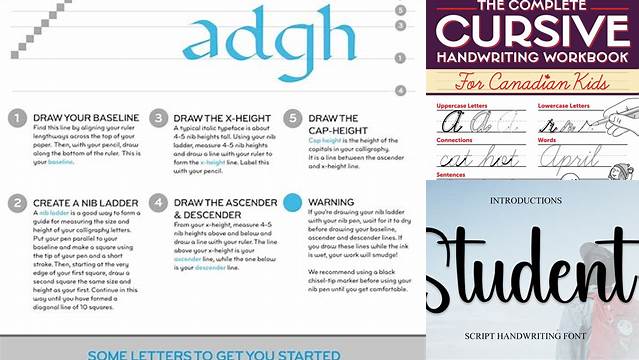
Best Handwriting Fonts For Students: A Comprehensive Guide
Introduction: Why Handwriting Fonts Matter for Students
Hey guys! Let's dive into the world of handwriting fonts and why they're super important for students. In this digital age, it's easy to forget the charm and personal touch of handwritten text. But trust me, handwriting fonts can be a game-changer in education. Think about it – seeing a worksheet or a presentation in a familiar, handwritten style can make the content feel less intimidating and more approachable. Plus, using handwriting fonts can help students connect with the material on a more personal level. It’s like having a conversation with the text! Whether you're a student yourself, a teacher looking for ways to spice up your classroom, or a parent wanting to support your child's learning, understanding the power of handwriting fonts is key. So, let's explore how these fonts can make learning more engaging, improve reading comprehension, and even spark creativity. We’ll also look at some fantastic options out there and how to use them effectively. Get ready to add a personal touch to your study materials!
The Benefits of Using Handwriting Fonts in Education
One of the primary benefits of using handwriting fonts in education is their ability to enhance engagement and readability. Let’s face it, staring at blocky, digital text all day can be a real drag. Handwriting fonts, on the other hand, bring a sense of warmth and authenticity to the learning experience. Imagine reading a history lesson written in a font that mimics cursive – it instantly feels more personal and less like a robotic recitation of facts. This personal connection can make students more likely to pay attention and absorb the information. Moreover, handwriting fonts can be particularly helpful for students who struggle with reading. The varied and less uniform appearance of these fonts can make text easier to process for some learners, especially those with dyslexia or other reading challenges. By presenting information in a style that’s closer to actual handwriting, we’re essentially bridging the gap between digital text and the familiar handwriting they see every day. This can reduce cognitive load and make the learning process smoother and more enjoyable. And let's not forget the creative aspect! Using handwriting fonts can inspire students to think differently about the content they're learning. It adds a touch of artistry to the educational experience, encouraging them to engage with the material in a more imaginative way.
Understanding Different Styles of Handwriting Fonts
Okay, let’s talk about the different styles of handwriting fonts out there. There's a whole spectrum to explore, from casual and playful to elegant and formal. Knowing the different styles can help you choose the best font for your specific needs. First up, we have the casual fonts. These are your go-to choices for a relaxed, friendly vibe. Think about fonts that mimic everyday handwriting – slightly uneven, with a natural flow. These are great for making materials feel approachable and less intimidating. Then there are the script fonts, which resemble cursive handwriting. Script fonts can add a touch of elegance and sophistication, making them ideal for projects where you want to convey a sense of style or formality. However, it’s essential to use them sparingly, as overly ornate script fonts can sometimes be hard to read. Next, we have the print handwriting fonts, which mimic the neat, block-letter style often taught in elementary schools. These are fantastic for younger students or for materials where clarity is paramount. They’re easy to read and can help reinforce handwriting skills. Finally, there are the unique and artistic handwriting fonts. These are the wild cards – fonts that incorporate quirky design elements or have a distinct personality. They’re perfect for adding a creative flair to projects, but again, readability should always be a top consideration. Understanding these different styles empowers you to select the font that best suits your message and audience, ensuring your materials are both effective and visually appealing.
Top Handwriting Fonts for Students: Our Recommendations
Alright, let's get to the fun part – recommending some top-notch handwriting fonts that are perfect for students. We've scoured the font universe to bring you a curated list that balances readability, style, and overall effectiveness in an educational setting. First on our list is “School Script Dashed,” a fantastic choice for early learners. This font mimics the dotted lines often used in handwriting practice, making it an excellent tool for teaching letter formation. It’s clear, simple, and incredibly helpful for reinforcing basic handwriting skills. Next up, we have “KG Primary Pen,” a super popular option among teachers. It’s clean, legible, and has a friendly vibe that makes it perfect for worksheets, presentations, and classroom decor. Plus, it comes in both regular and lined versions, offering even more flexibility. For a more casual and approachable feel, check out “Journaling Pen.” This font looks like actual handwriting, with a slightly messy charm that makes it feel authentic and personal. It’s great for adding a touch of personality to your materials without sacrificing readability. If you’re looking for a script font that’s both elegant and easy to read, “CAC Shasted” is a winner. It has a lovely cursive style that’s perfect for headings, titles, or special notes. Just remember to use it sparingly to ensure optimal readability. Last but not least, we have “OpenDyslexic, ” While not strictly a handwriting font, it’s designed to be incredibly readable for students with dyslexia. It’s a sans-serif font with uniquely shaped letters that help prevent confusion, making it an invaluable tool for inclusive classrooms. These are just a few of the many great handwriting fonts out there, but they’re a fantastic starting point for enhancing your educational materials.
Reviewing Popular Choices: KG Primary Pen, School Script Dashed, and More
Let's dig a little deeper into some of the popular handwriting fonts we mentioned, starting with KG Primary Pen. This font is a real workhorse in the education world, and for good reason. It's designed by Kimberly Geswein, a former teacher, so it's created with the needs of students and educators in mind. KG Primary Pen stands out for its clarity and simplicity. The letters are well-formed and easy to distinguish, making it an excellent choice for young learners who are just starting to read and write. The font also has a friendly, approachable feel, which can make learning materials less intimidating. One of the great things about KG Primary Pen is that it comes in multiple versions, including lined options. These lined versions are fantastic for handwriting practice, as they provide a visual guide for letter placement and size. This makes it easier for students to develop neat and consistent handwriting skills. Now, let’s talk about School Script Dashed. This font is specifically designed to mimic the dotted lines used in handwriting workbooks, making it an invaluable tool for teaching letter formation. The dotted lines help students trace the letters correctly, reinforcing the muscle memory needed for fluent handwriting. School Script Dashed is also incredibly clear and easy to read, which is essential for early learners. Its simplicity ensures that students can focus on the shape of the letters without being distracted by unnecessary flourishes or embellishments. Beyond these two, there are other noteworthy options like Journaling Pen, which offers a more casual, handwritten feel, and CAC Shasted, a lovely script font that adds a touch of elegance. Each of these fonts brings something unique to the table, so it’s worth experimenting to find the ones that work best for your specific needs. Remember, the goal is to choose fonts that enhance readability and engagement, making the learning experience as positive and effective as possible.
How to Use Handwriting Fonts Effectively in Your Teaching Materials
So, you've got some awesome handwriting fonts in your toolkit – great! But how do you actually use them effectively in your teaching materials? It's not just about slapping a handwritten-style font on everything and calling it a day. There's a bit of finesse involved in making sure these fonts enhance, rather than hinder, the learning process. First and foremost, think about readability. While handwriting fonts can add a personal touch, they shouldn't come at the expense of clarity. Avoid using overly ornate or stylized fonts for large blocks of text. Save those for headings, titles, or short phrases where a bit of flair can make an impact without sacrificing legibility. For body text, stick to cleaner, simpler handwriting fonts that mimic everyday penmanship. Another key tip is to consider your audience. What works for a high school student might not work for a kindergartner. Younger students benefit from fonts that closely resemble the print handwriting they're learning in class, while older students might appreciate more sophisticated styles. Think about the context too. A worksheet might call for a different font than a presentation slide. Worksheets often benefit from clear, simple fonts that are easy to write on, while presentations can handle a bit more visual pizzazz. Don't be afraid to mix and match fonts, but do it strategically. Pairing a handwriting font with a clean, sans-serif font can create a visually appealing contrast while maintaining readability. Use the handwriting font for headings or emphasis and the sans-serif font for the main text. Finally, always test your materials. Print out a sample page or view your presentation on a screen to see how the fonts look in different formats. This can help you catch any readability issues before you distribute your materials to students. Using handwriting fonts effectively is about finding the right balance between style and substance, ensuring that your materials are both engaging and easy to understand.
Tips for Choosing the Right Font for Different Age Groups and Subjects
Choosing the right handwriting font for different age groups and subjects is crucial for creating effective learning materials. What works wonders for a group of kindergartners might be a complete miss for high school students, and vice versa. So, let’s break down some tips to help you make the best choices. For early elementary students (think kindergarten through second grade), clarity and simplicity are key. You'll want fonts that closely mimic the basic print handwriting they're learning in class. Fonts like School Script Dashed or a clean, straightforward print handwriting font are excellent choices. Avoid overly stylized or cursive fonts at this stage, as they can be difficult for young learners to decode. For upper elementary and middle school students (grades 3-8), you have a bit more flexibility. You can start incorporating fonts that have a bit more personality while still maintaining readability. A casual handwriting font that resembles everyday penmanship can work well for subjects like language arts or social studies. If you're teaching handwriting itself, a font that demonstrates proper letter formation and spacing is ideal. When it comes to high school students, you can explore a wider range of styles. Script fonts or more artistic handwriting fonts can be used sparingly for headings or titles to add visual interest. However, always ensure that the main body text is highly readable. Consider the subject matter as well. A more formal script font might be appropriate for a literature class, while a casual font might be better suited for a creative writing assignment. Beyond age and subject, think about the specific learning needs of your students. If you have students with dyslexia or visual impairments, opt for fonts that are designed to be highly readable, such as OpenDyslexic or fonts with clear, distinct letterforms. Ultimately, the best font is one that enhances learning without distracting from the content. By carefully considering your audience and the context, you can choose handwriting fonts that make a real difference in student engagement and comprehension.
Creative Ways to Incorporate Handwriting Fonts in Assignments and Projects
Okay, so you know which handwriting fonts to use and how to choose them, but let’s brainstorm some creative ways to incorporate them into assignments and projects! There’s so much potential here to make learning more engaging and fun. One fantastic idea is to use handwriting fonts for personalized feedback. Imagine receiving a graded paper with comments written in a friendly, handwritten-style font – it feels so much warmer and more approachable than standard typed feedback. This can make students more receptive to constructive criticism and encourage them to see feedback as a conversation. Another great way to use handwriting fonts is in creating visually appealing worksheets and handouts. Instead of relying solely on blocky, digital text, sprinkle in handwriting fonts to add a personal touch. Use them for headings, instructions, or even to highlight key information. This can make the materials feel less sterile and more engaging. For projects, encourage students to use handwriting fonts in their presentations or digital creations. This can add a unique flair and help them develop a personal style. Whether they're creating a slideshow, a digital poster, or a video, incorporating handwriting fonts can make their work stand out. Consider using handwriting fonts to create interactive activities. For example, you could design a matching game where students have to match handwritten words to their definitions, or create a fill-in-the-blank worksheet with handwriting-style prompts. This can add an element of fun to the learning process and reinforce handwriting skills. Don't forget about using handwriting fonts for classroom decor and displays. Posters, banners, and bulletin boards can all benefit from the personal touch of a handwritten-style font. This can create a welcoming and inspiring learning environment. By thinking outside the box, you can find countless ways to incorporate handwriting fonts into your teaching and create more engaging and effective learning experiences for your students. It’s all about adding that human touch to the digital world!
Conclusion: The Enduring Appeal of Handwriting Fonts in Education
In conclusion, the enduring appeal of handwriting fonts in education lies in their ability to bridge the gap between the digital world and the personal touch of handwriting. Guys, we've covered a lot in this guide, from understanding the benefits of using handwriting fonts to choosing the right ones for different age groups and subjects. We've also explored creative ways to incorporate these fonts into assignments and projects. The bottom line is that handwriting fonts offer a unique way to enhance engagement, improve readability, and add a personal touch to learning materials. In a world dominated by digital text, the warmth and authenticity of handwriting can be incredibly refreshing. By using handwriting fonts strategically, educators can create a more welcoming and inspiring learning environment. Students, in turn, can benefit from materials that feel less intimidating and more approachable. Whether it's a worksheet, a presentation, or a classroom display, a well-chosen handwriting font can make a significant difference. So, let's embrace the power of handwriting fonts and continue to find innovative ways to incorporate them into the educational landscape. By doing so, we can ensure that the art of handwriting remains relevant and valued in the digital age. Remember, it's not just about the font – it's about the connection, the engagement, and the personal touch that handwriting brings to the learning experience. Let’s keep writing and keep inspiring!